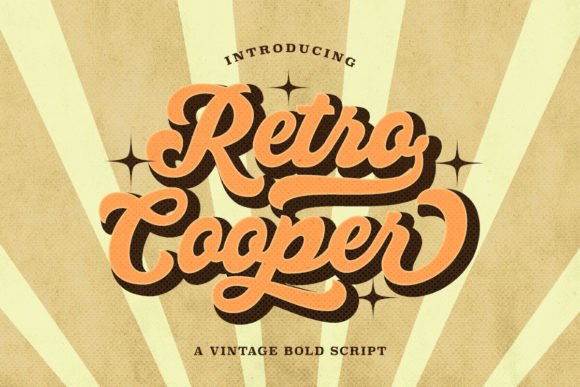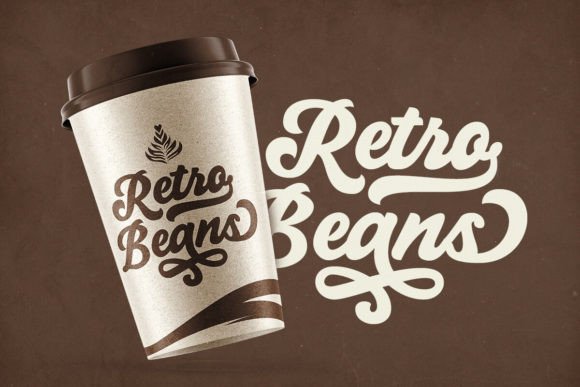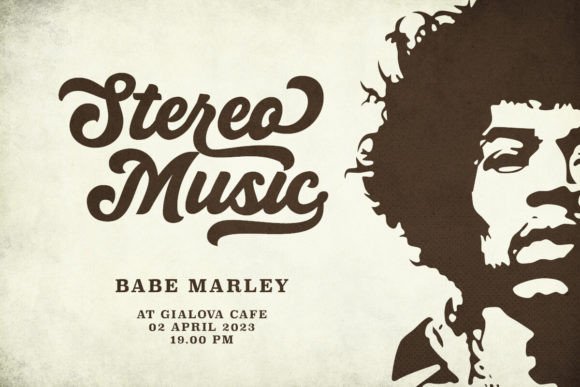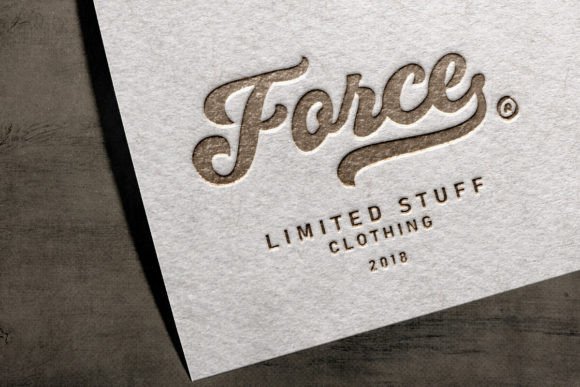
Retro Cooper Font: Bold Vintage Script for Poster Design
About the Retro Cooper Font
From logos to headlines, the Retro Cooper Font is the perfect choice for making a lasting impression. Retro Cooper is a vintage and retro bold script with stylish alternates and ligatures. With a vintage look, you can use this font for any poster retro event that requires classic, old-timey vibes.
Retro Cooper thrives in headline applications, particularly for projects emphasizing a vintage aesthetic—think posters for retro events, album art, or branding for classic-inspired businesses. Its bold strokes and swashes make it less suitable for body text or UI elements where high readability is crucial. Long paragraphs set in Retro Cooper would be visually overwhelming and difficult to read.
The font’s personality is undeniably bold and playful, yet retains a classic elegance. This makes it ideal for brands seeking a vintage feel without appearing dated or overly whimsical.
Pairing Retro Cooper with a clean sans-serif like Montserrat for body copy or a geometric sans-serif like Futura for supporting text creates a strong visual contrast, balancing its elaborate forms. For a more cohesive vintage feel, consider pairing it with a complementary serif like Playfair Display.
Retro Cooper Font Usage Examples
Retro Cooper Font Example